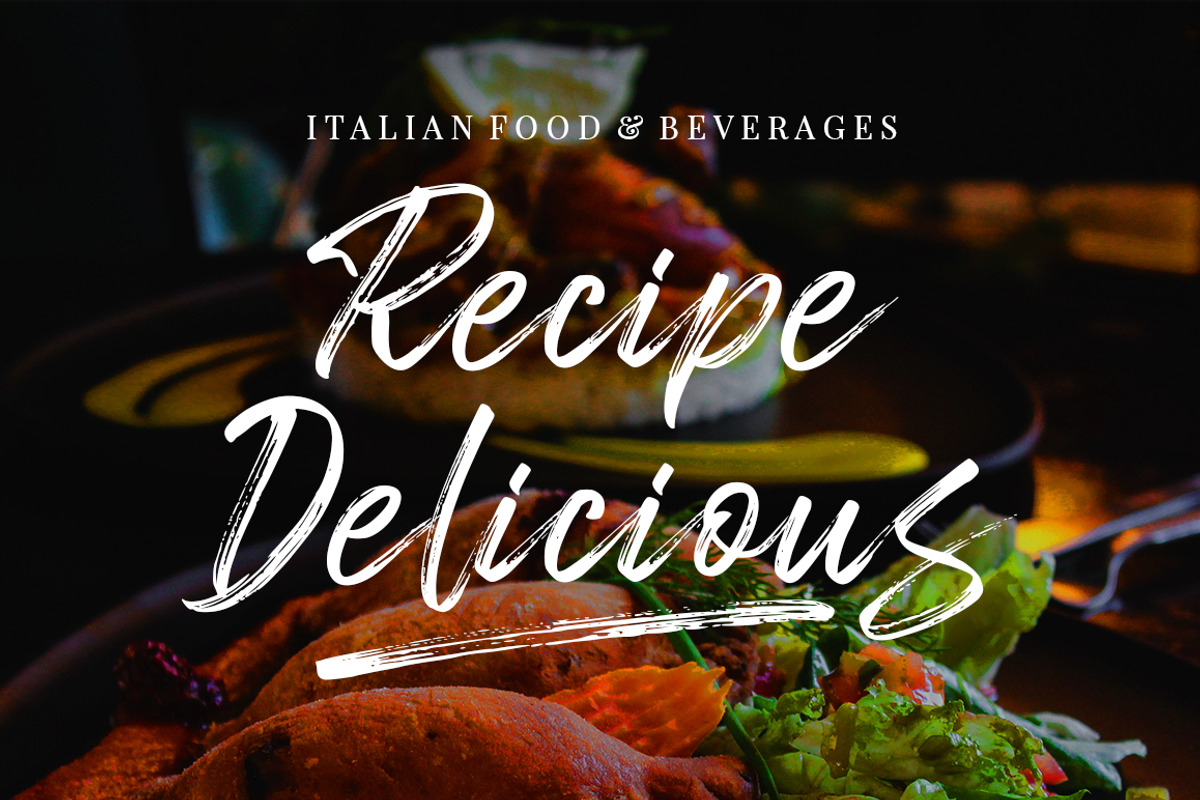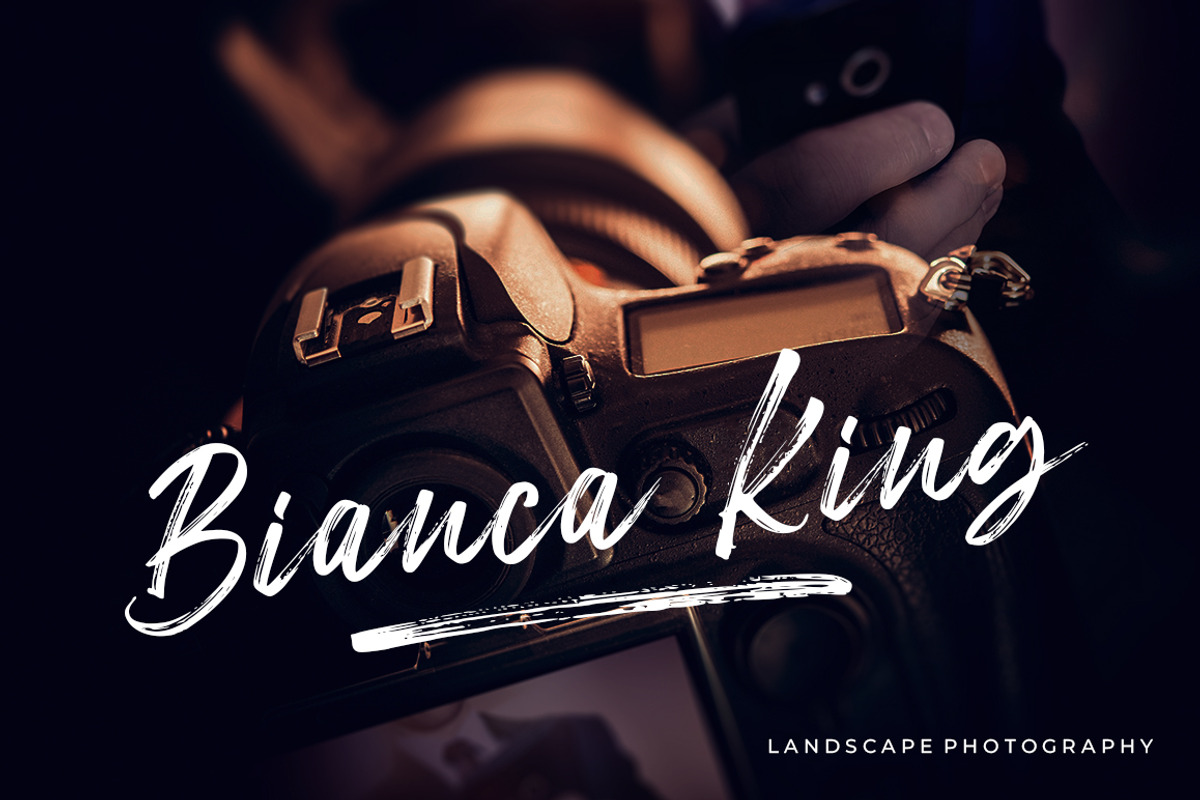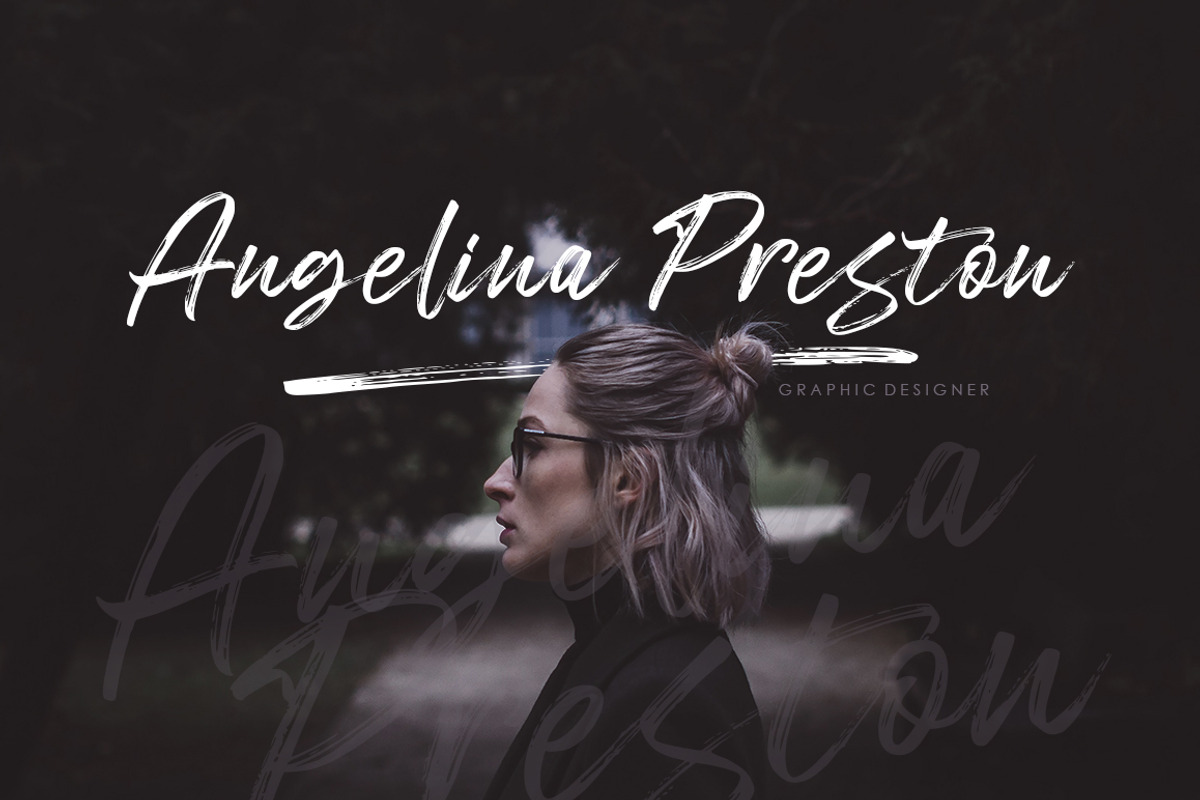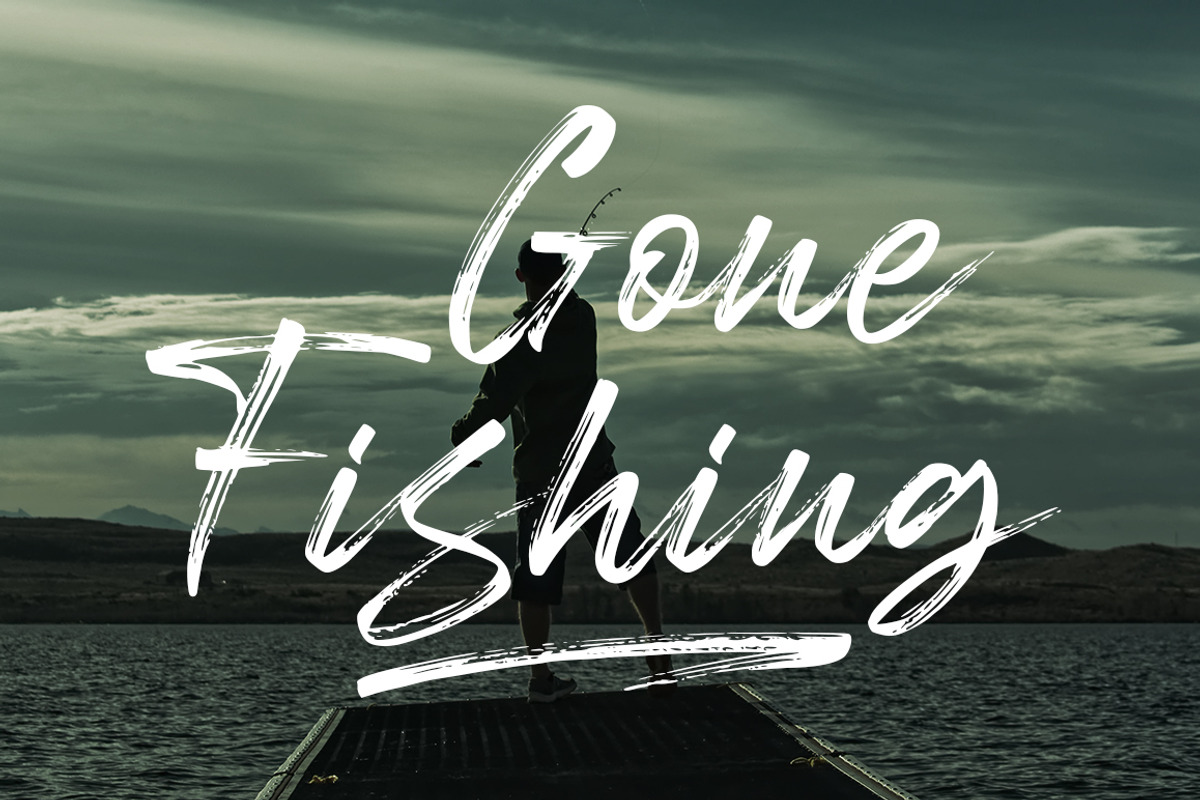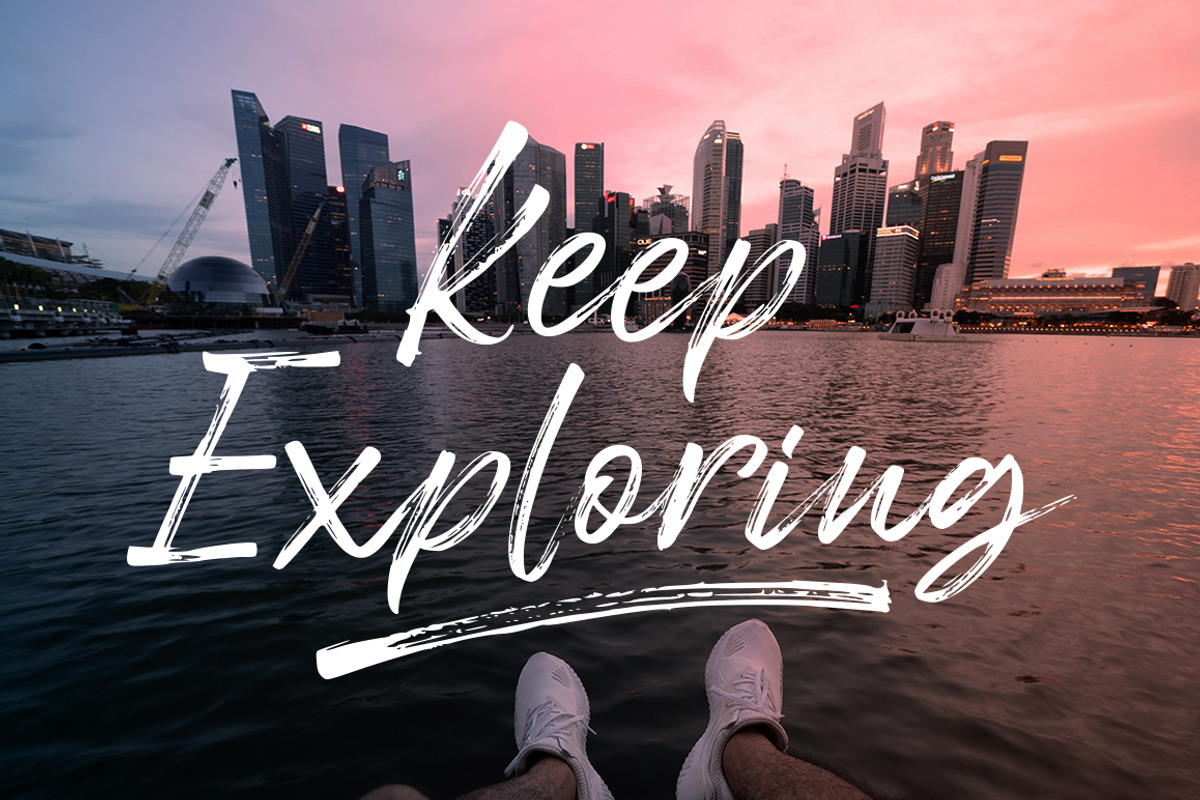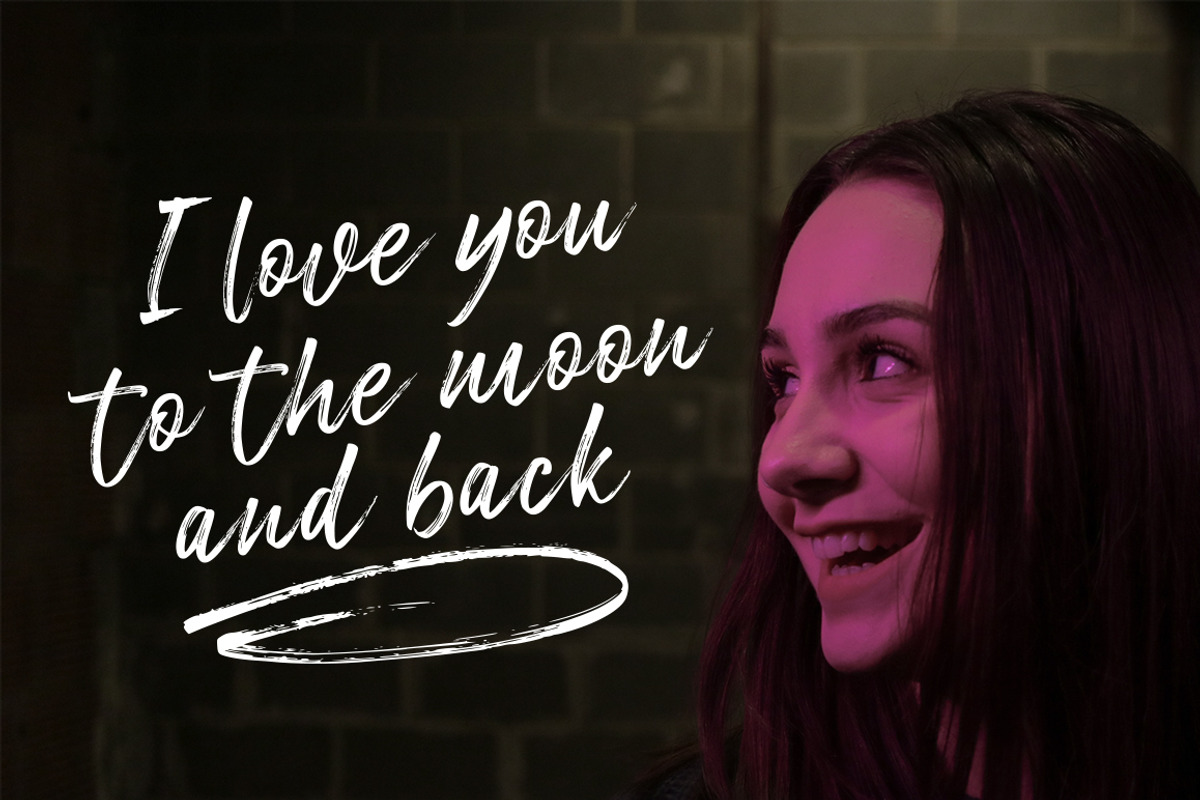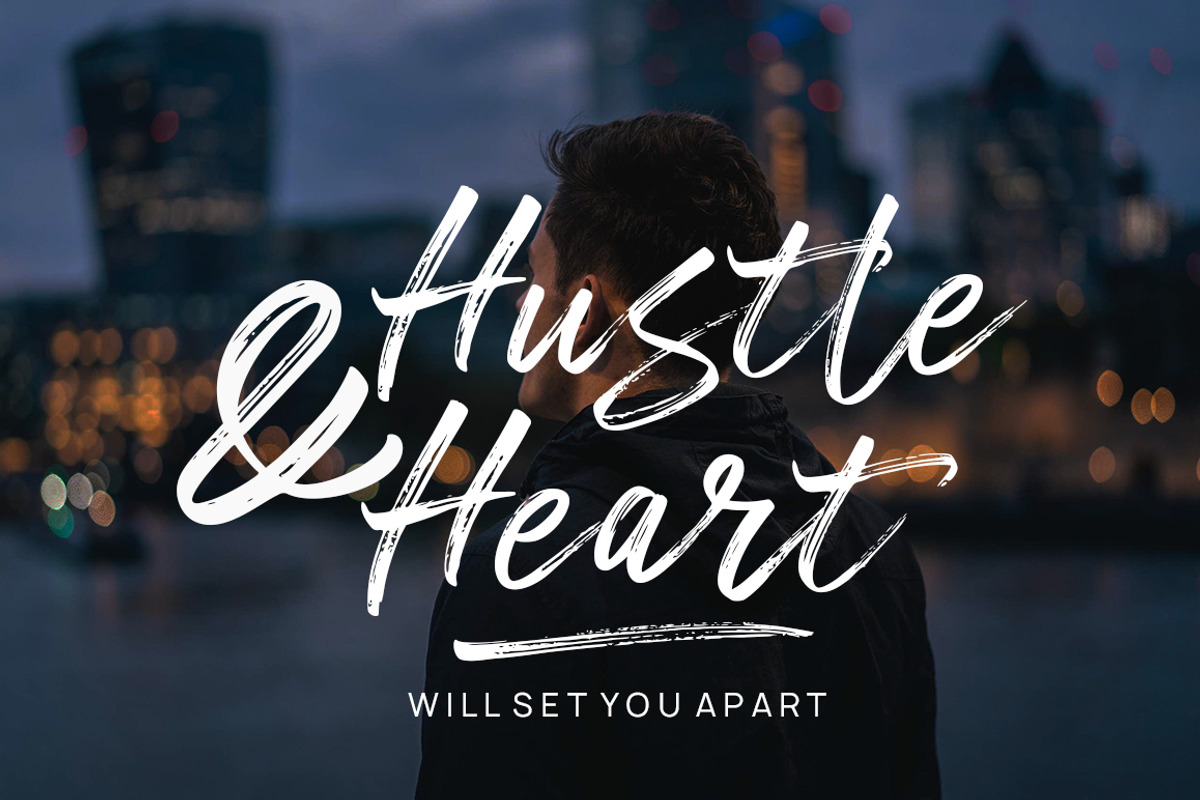
Freshline Brush Font
Freshline is a textured brush font, a contemporary approach to design, handmade with an irregular baseline. Suitable for use in title design such as apparel, invitations, book tittles, stationery design, quotes, branding, logos, greeting cards, t-shirts, packaging design, posters and more.
Freshline includes a complete set of uppercase and lowercase letters, as well as multi-language support, numbers, punctuation, ligatures, alternatives and extra swash.